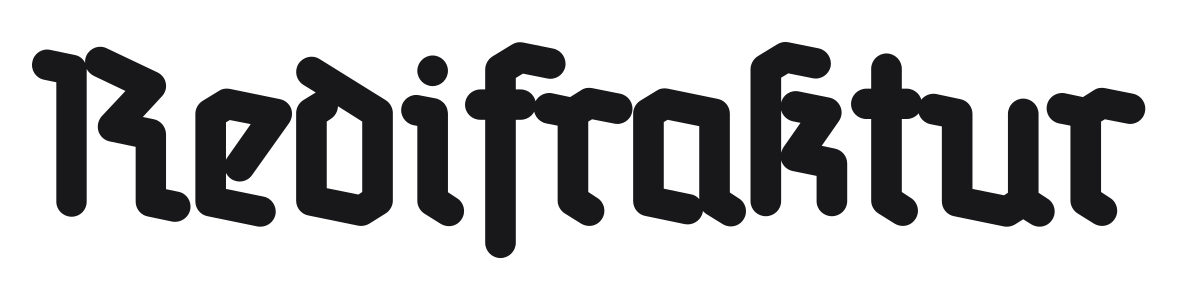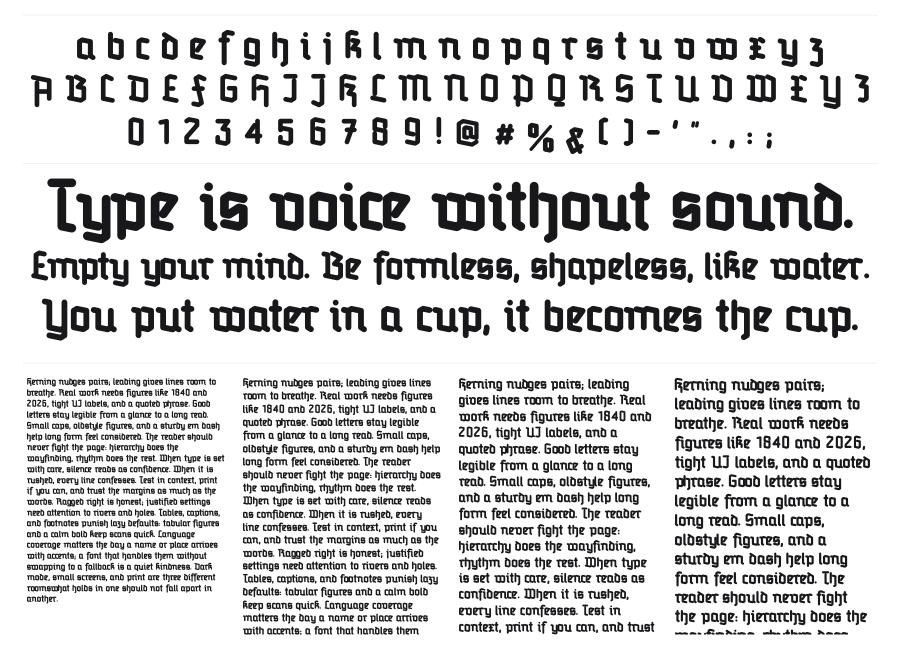
Redifraktur
by Jakub Stanski
Redifraktur is a modern fraktur blackletter drawn with a simulated reed pen, giving all strokes an equal, rounded thickness rather than the sharp calligraphic contrast of traditional Gothic type. That single structural choice transforms the broken-arch heritage of fraktur into something contemporary and approachable without erasing its character. Inspired by the Tannenberg cut used in German railway station signage through the 1930s, it sits at an unusual crossroads between historical reference and modernist construction.